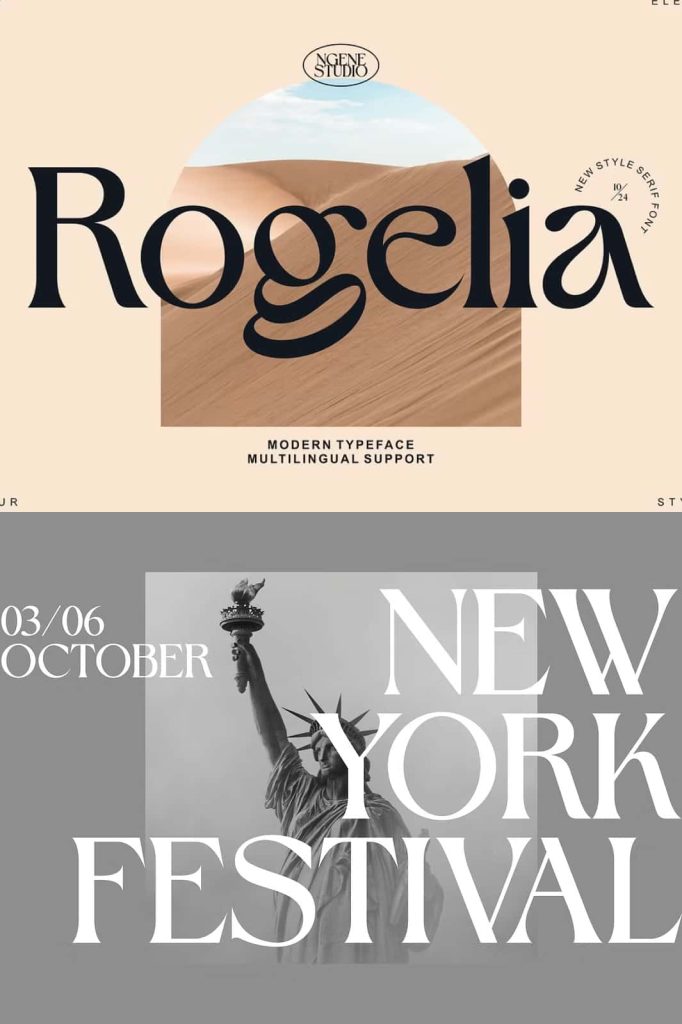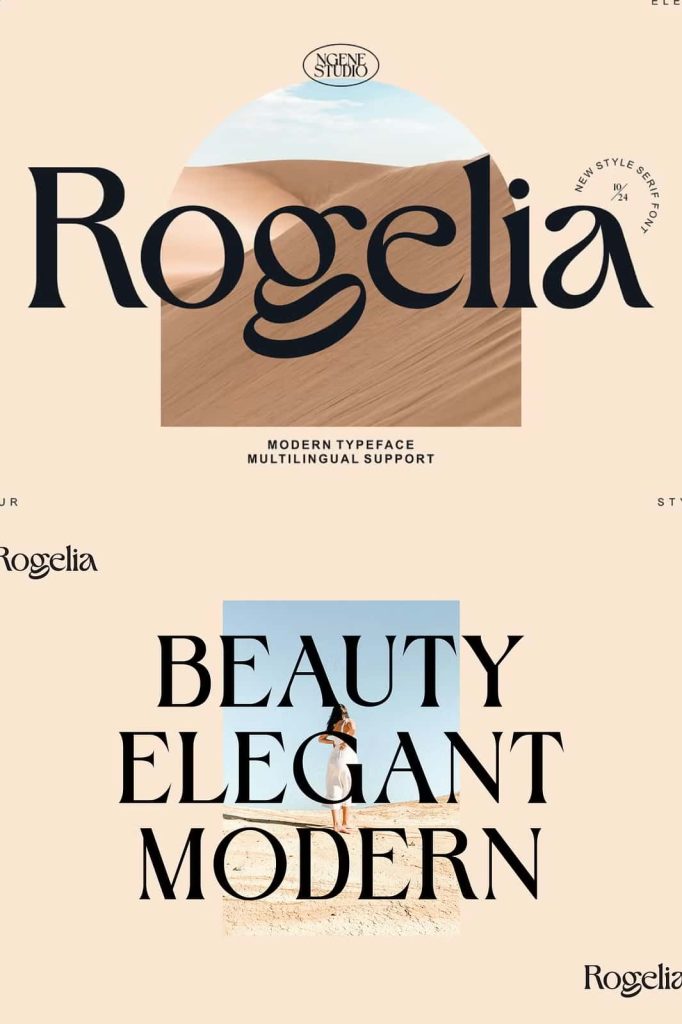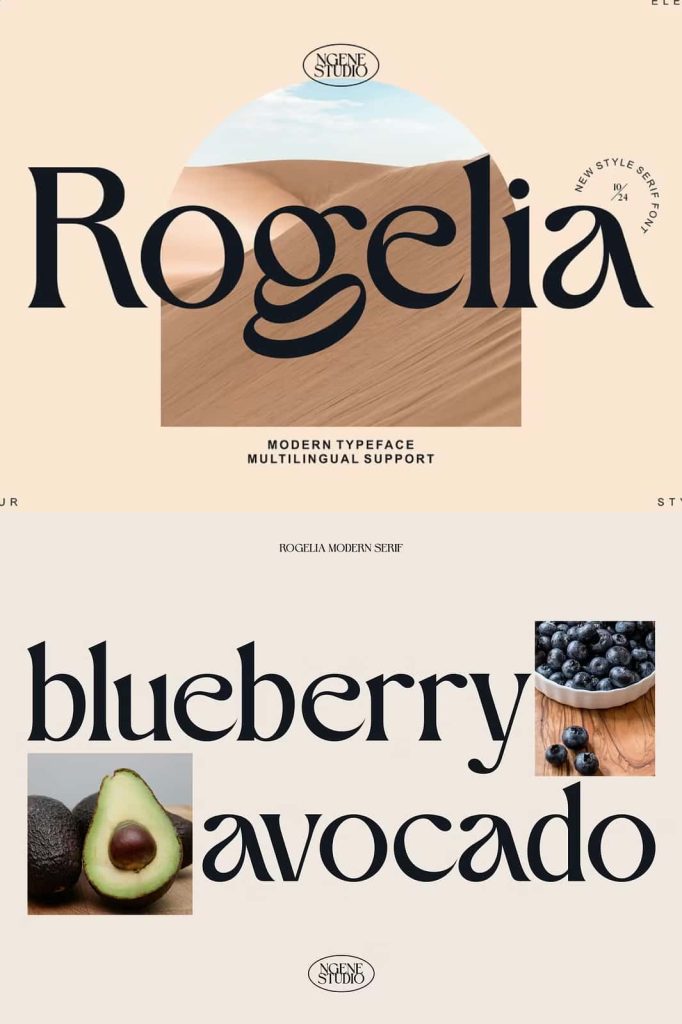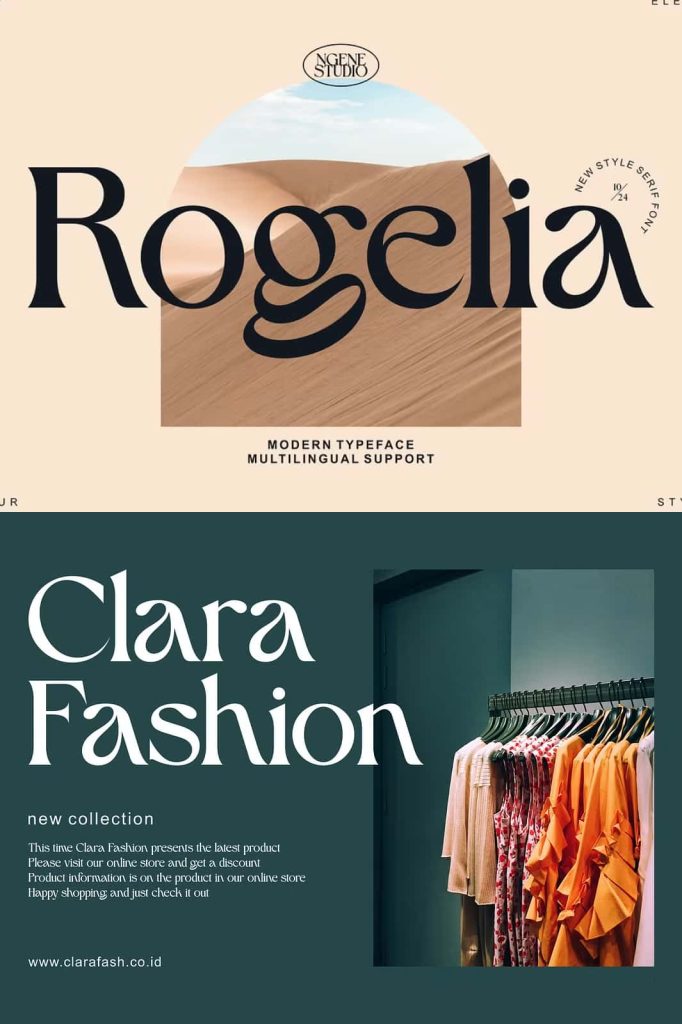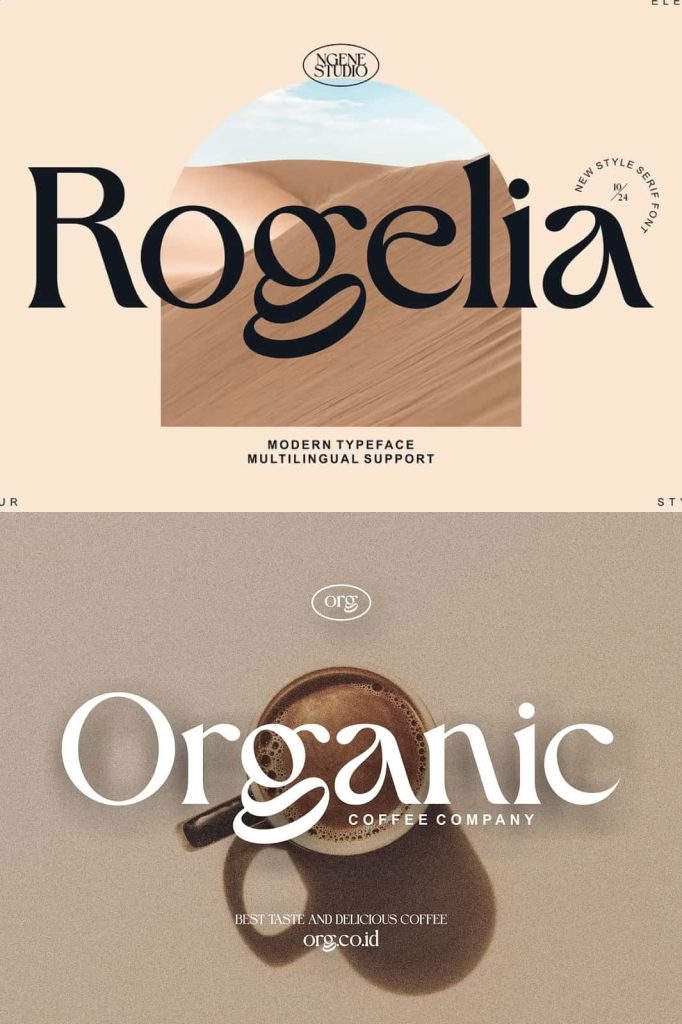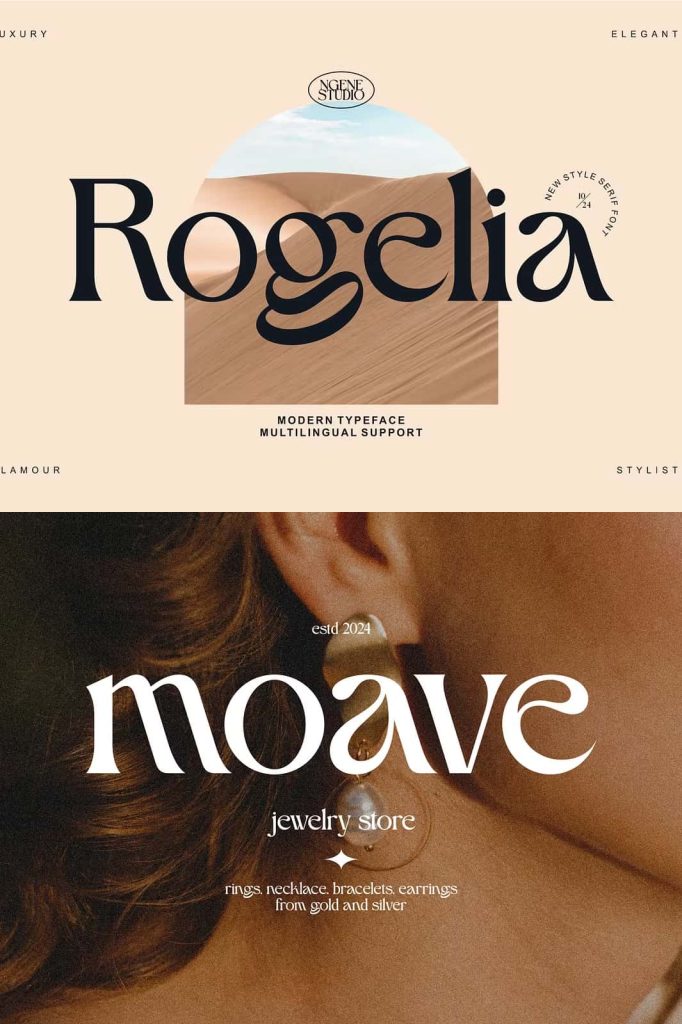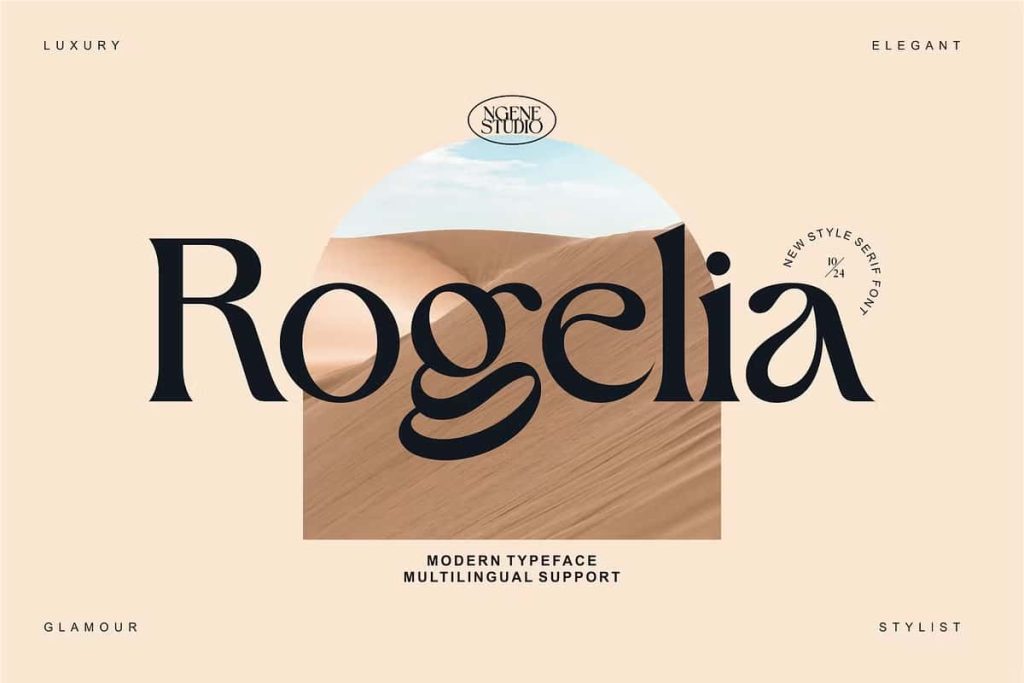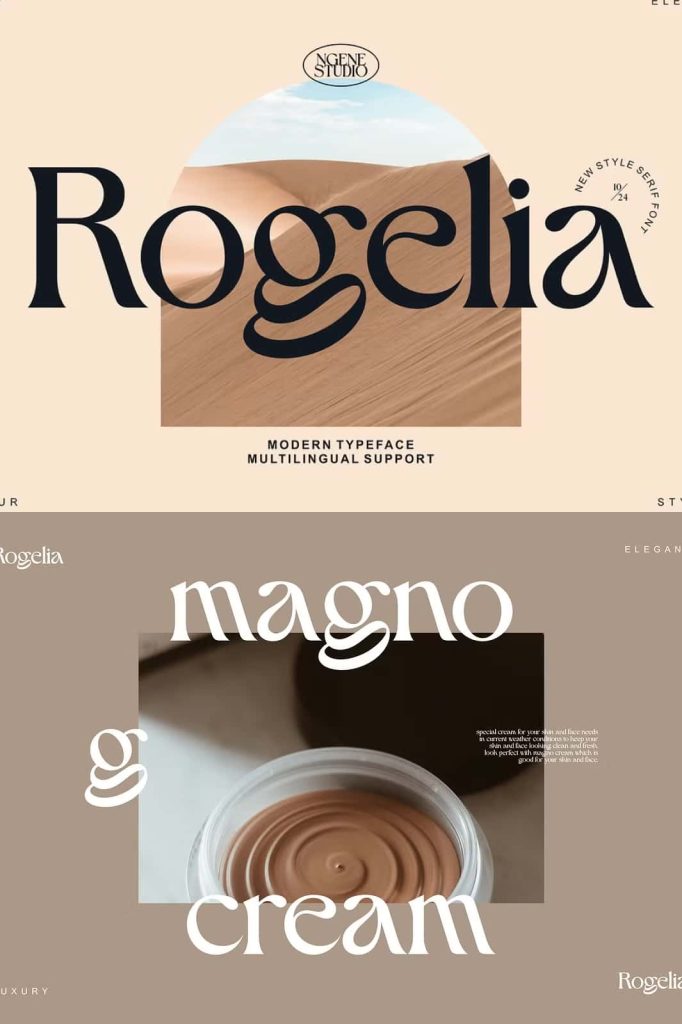
Rogelia vintage style serif font with an elegant and modern touch, this font draws from a wide variety of characters. This font has several alternatives built into it, perfect for creating logo designs, badges, web fonts, magazines and more.